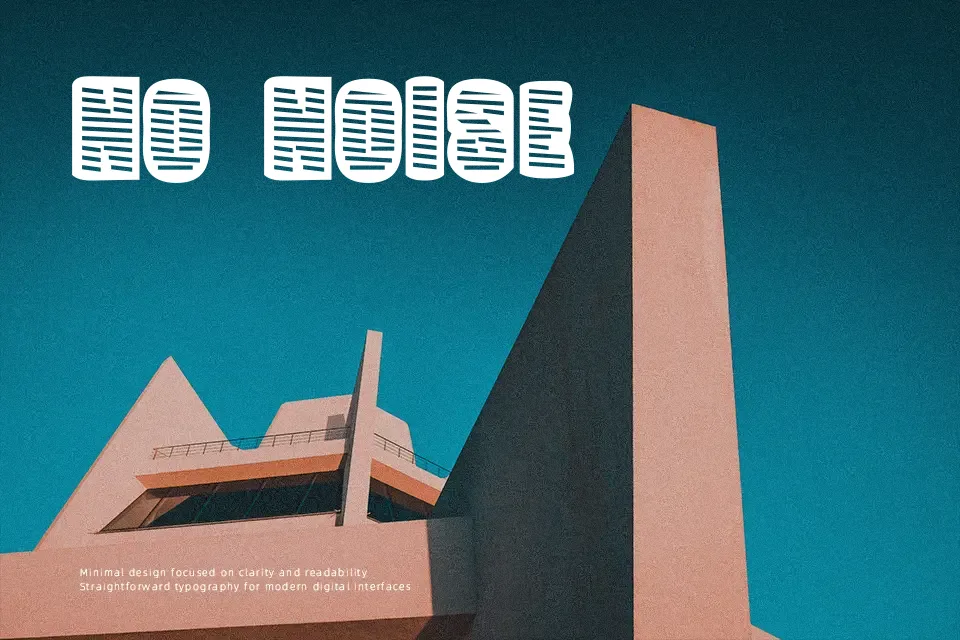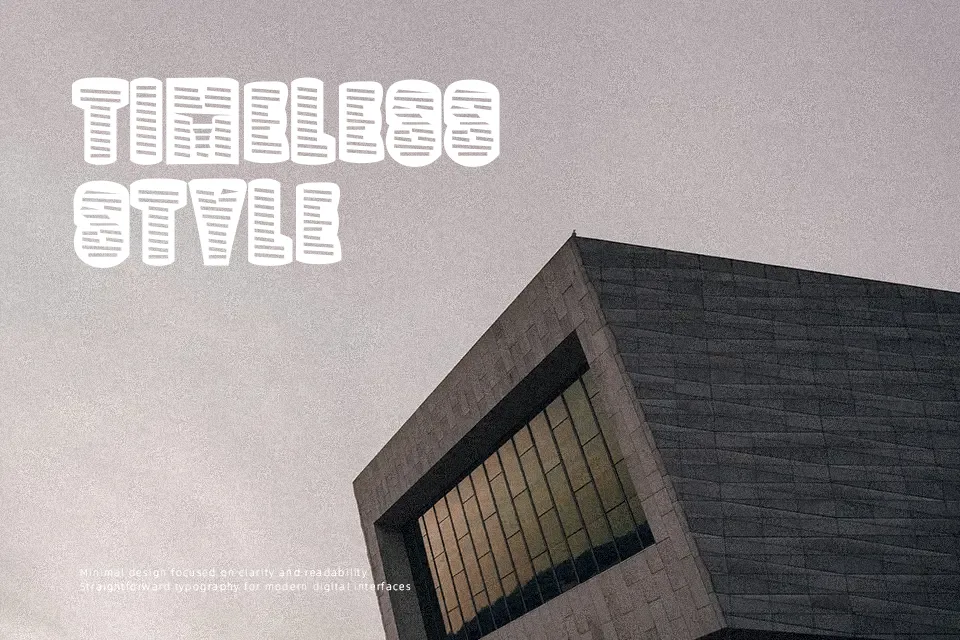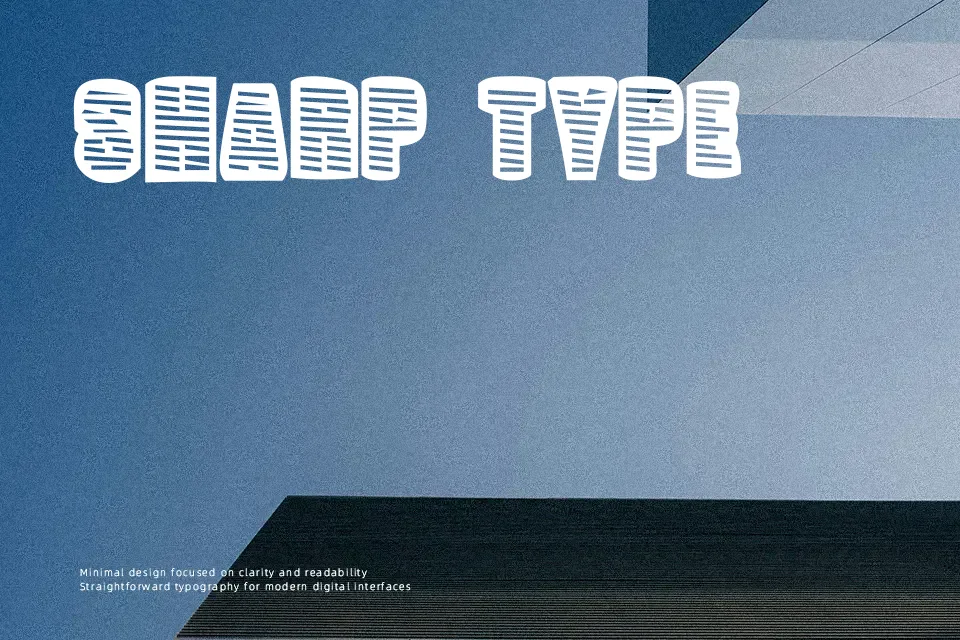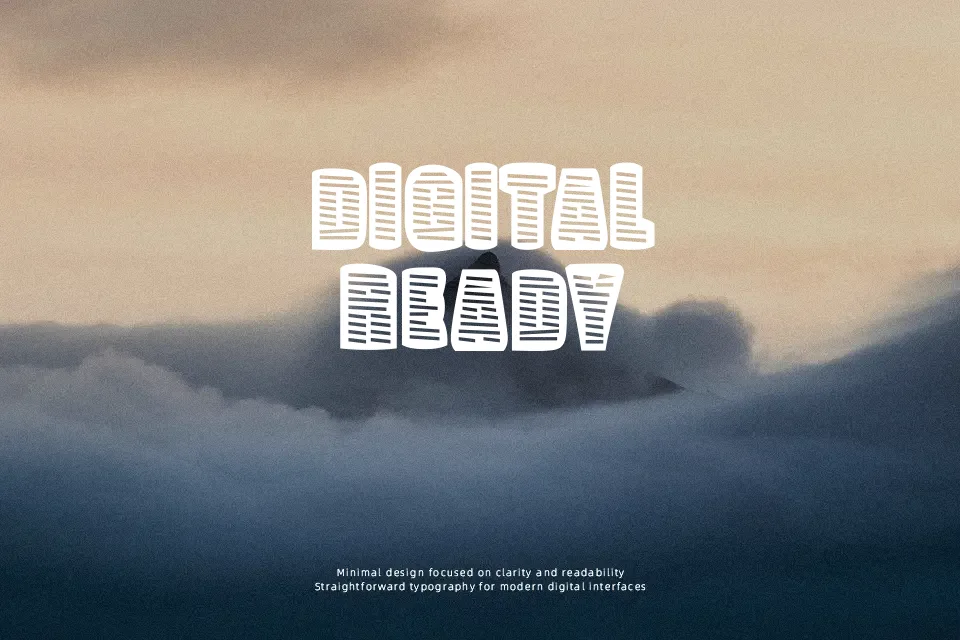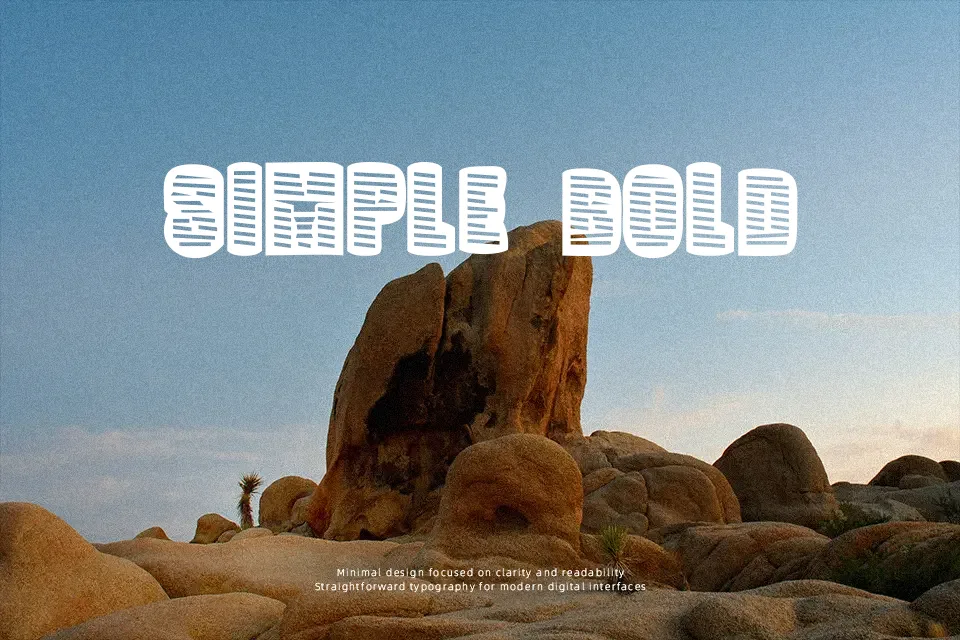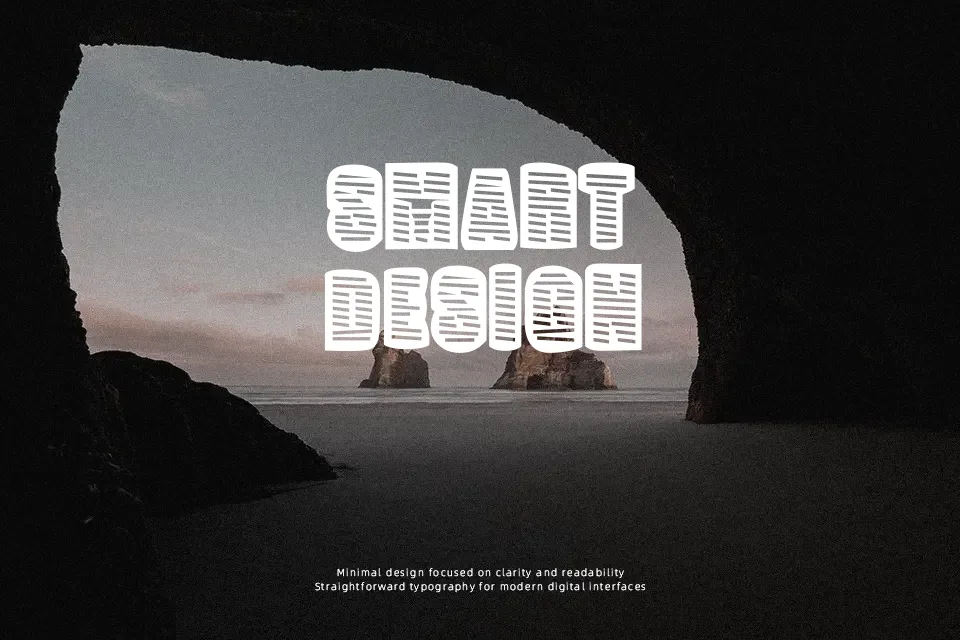
Pop Will Eat Itself Font
Structured around thick strokes and highly solid proportions, the Pop Will Eat Itself Font immediately commands attention in any large format design. The letterforms carry a heavy, blocky weight with slightly tight character spacing that creates a uniquely dense visual rhythm across horizontal headlines. This exceptionally bold structural approach helps maintain visual impact in rebellious branding, modern album covers, and street apparel graphics. However, the dense forms significantly reduce comfort during extended reading, making it entirely unsuitable for small paragraph text. The heavy weight performs best when displayed at larger sizes where the aggressive geometry can be fully appreciated without compromising overall legibility.
Best For: music festival posters, street apparel graphics, bold website headlines, modern album covers
Not Ideal For: long paragraph text, corporate reports, small interface labels, dense editorial layouts
Perfect for branding, headline, and music, with a bold and decorative style.